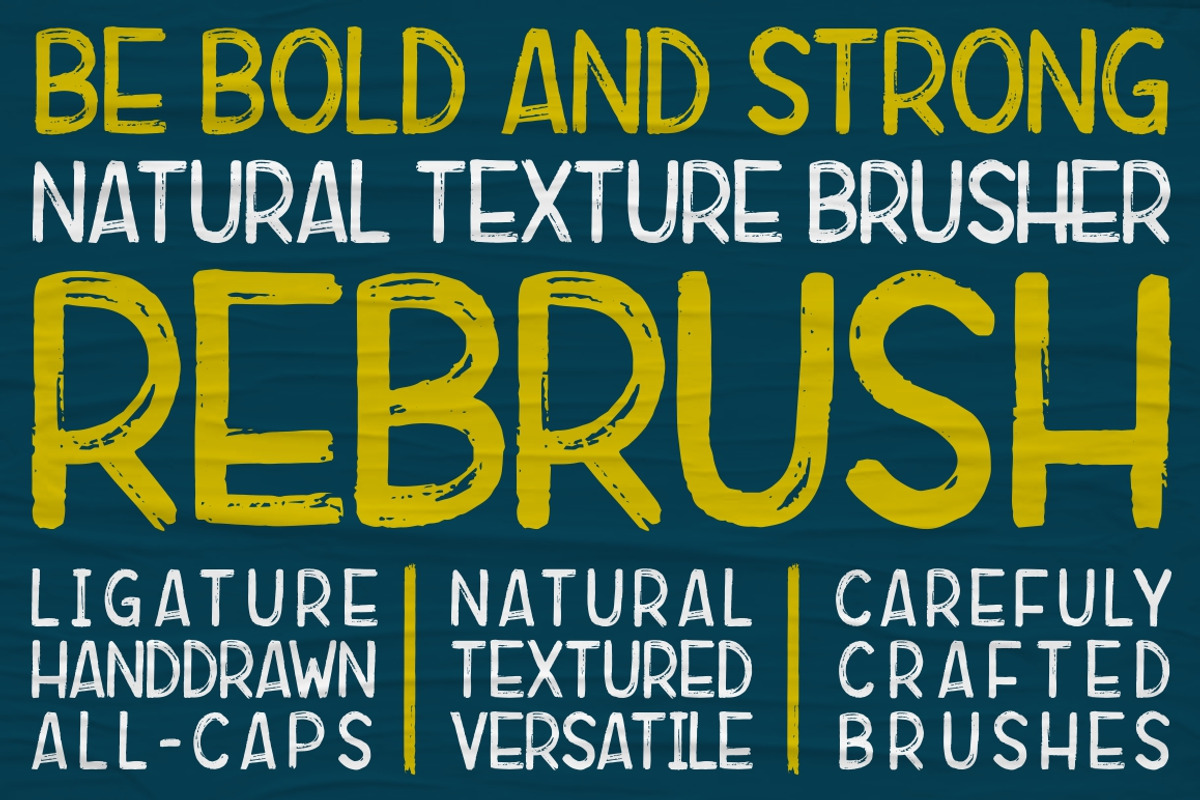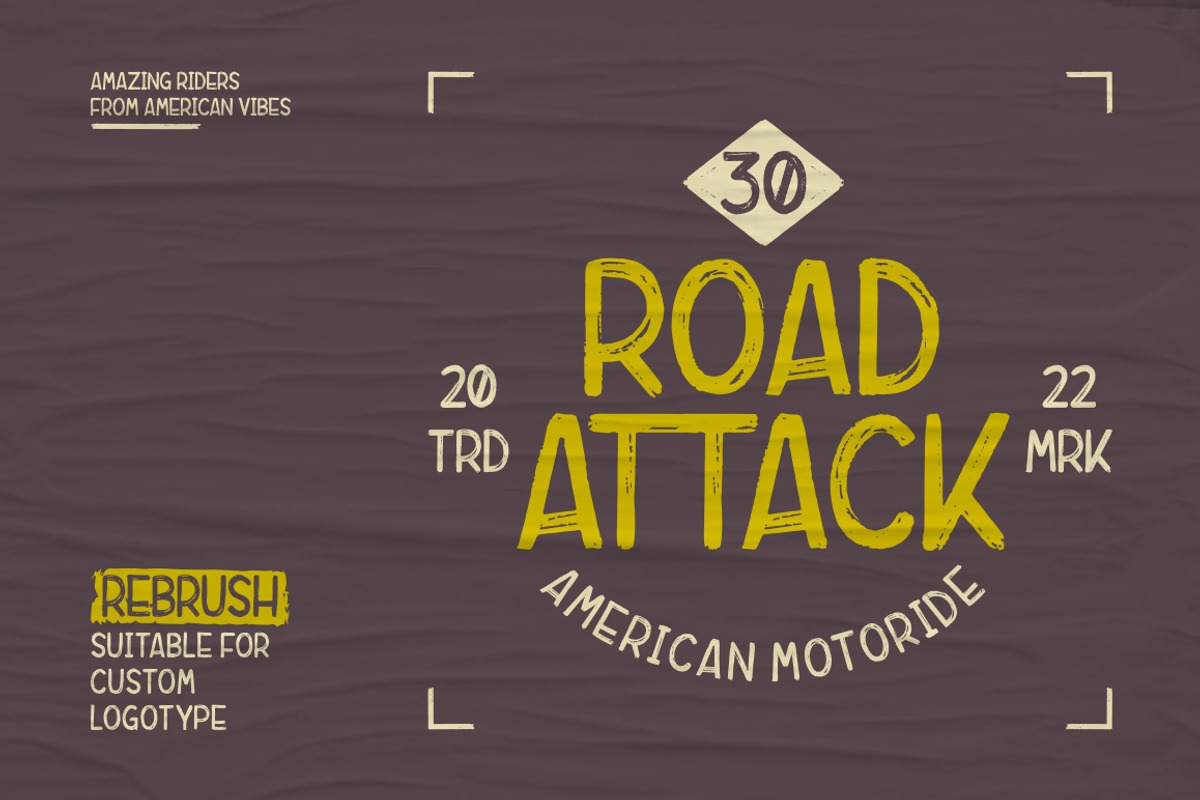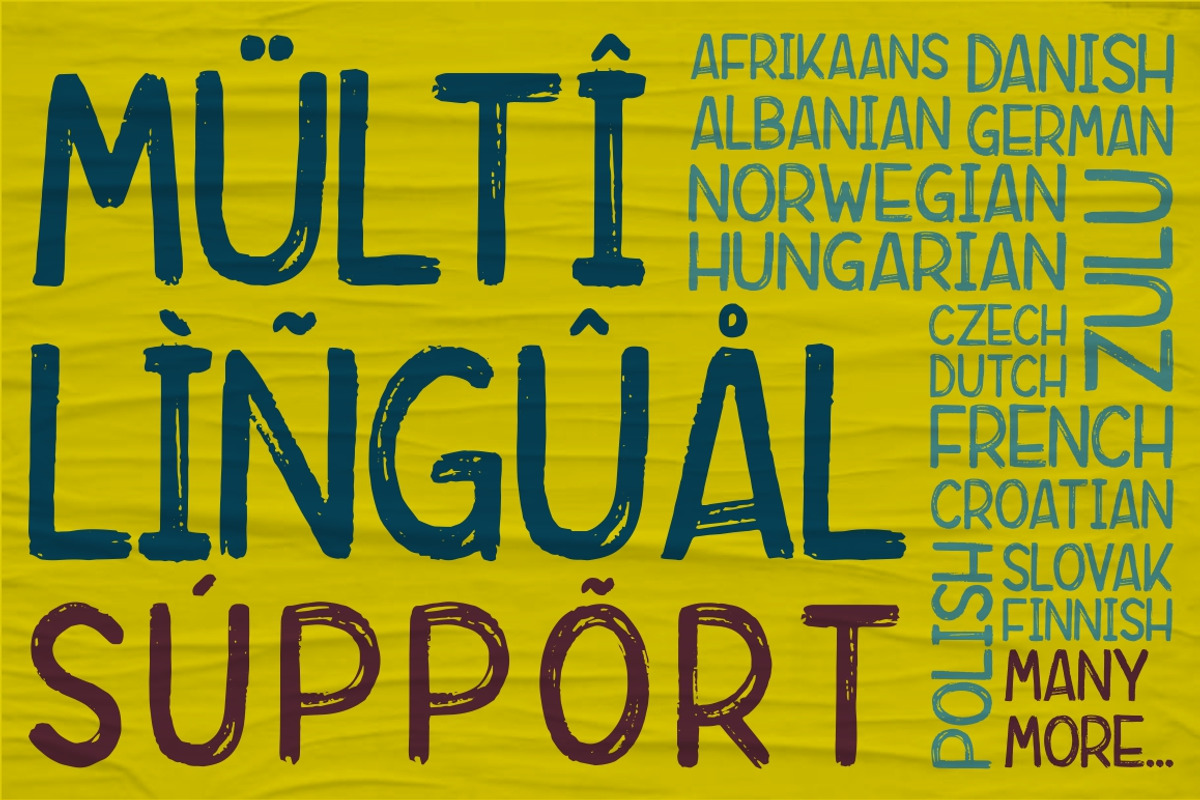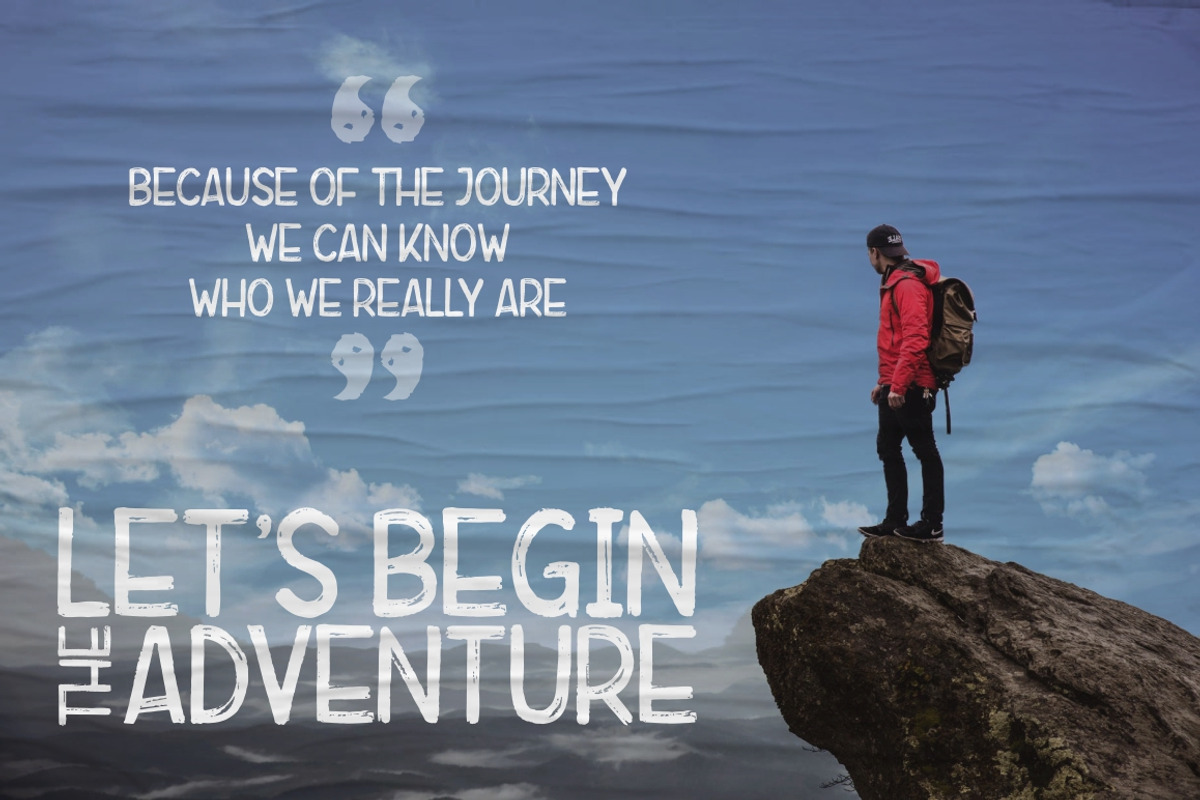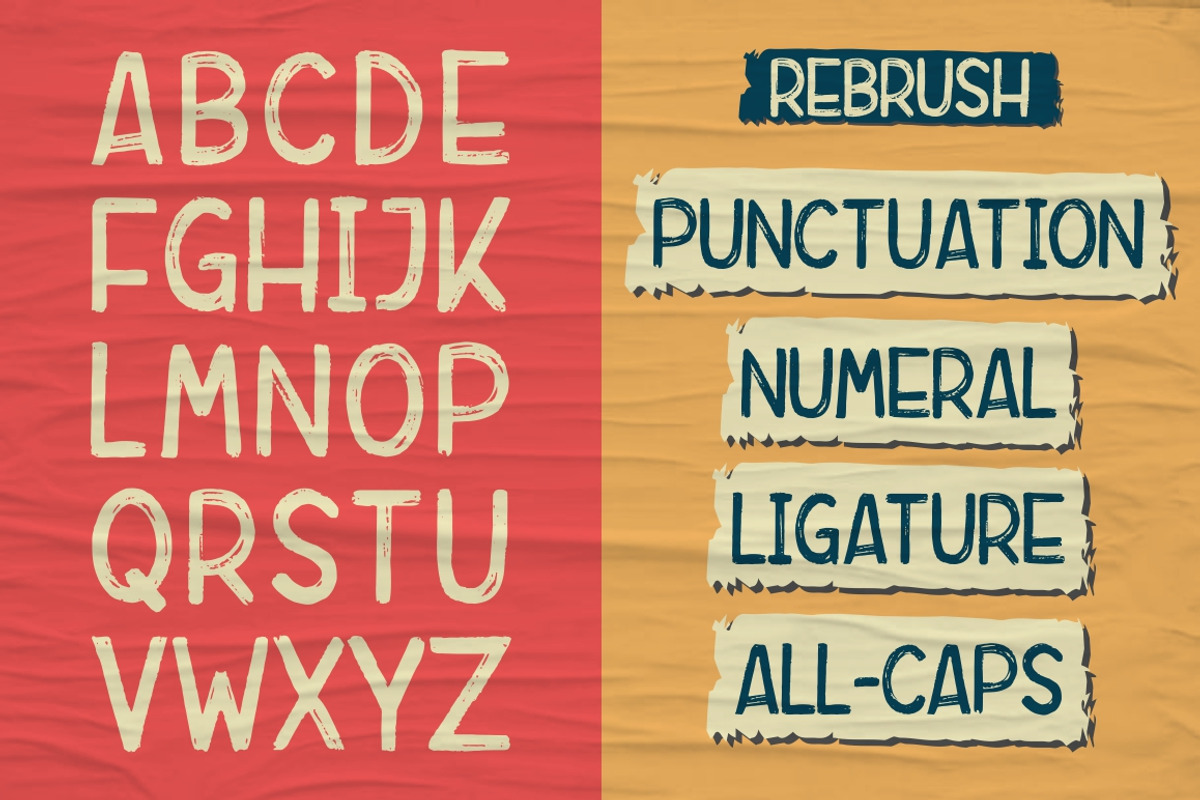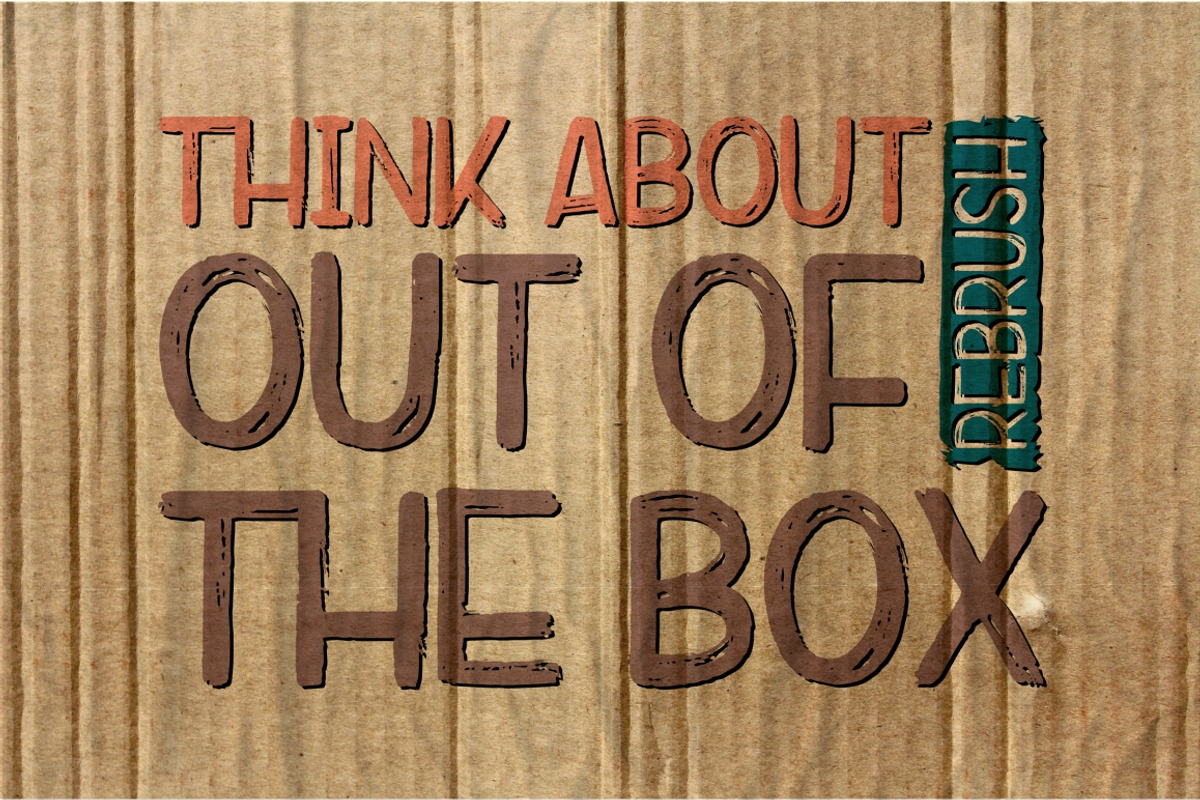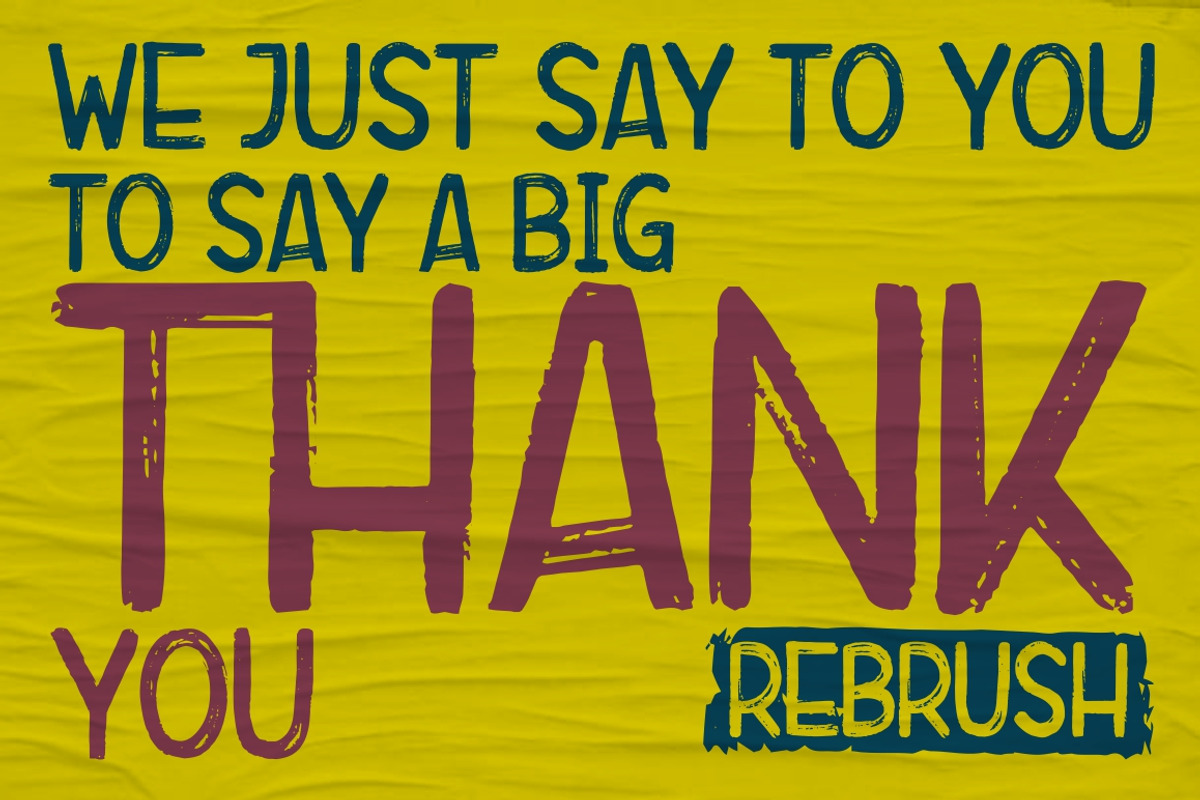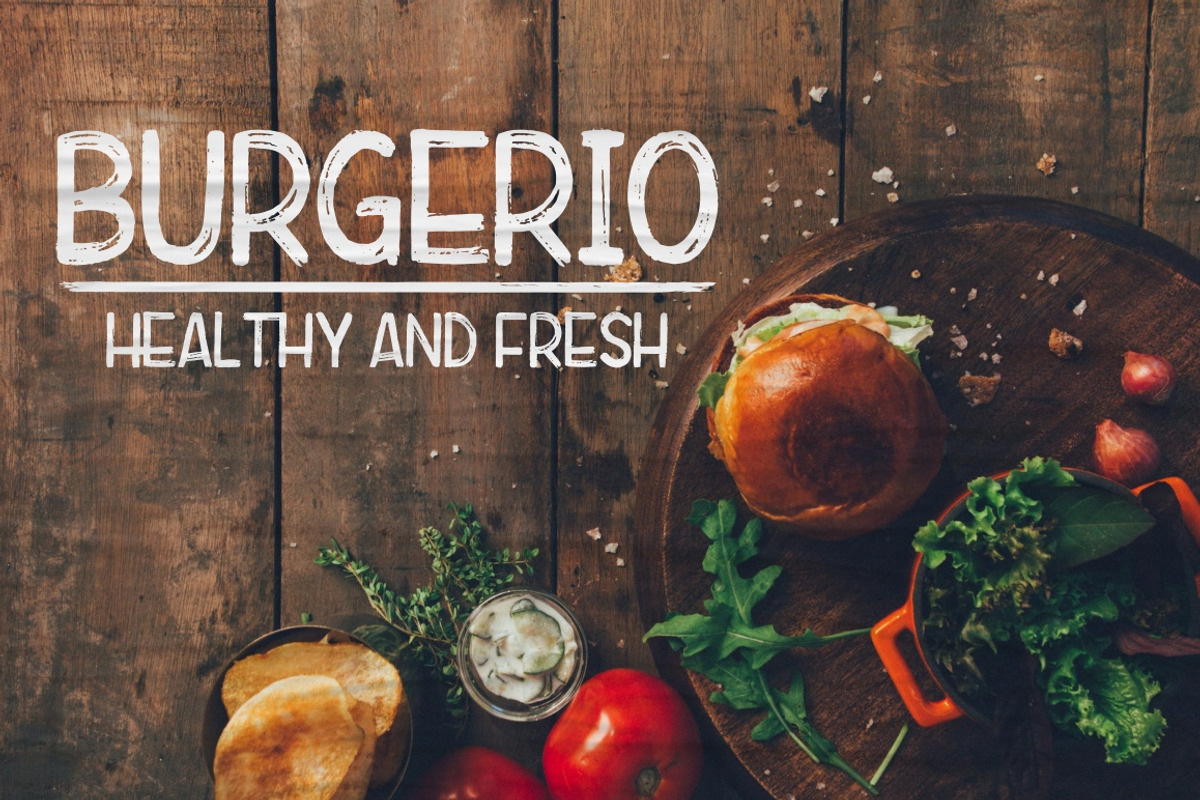
Rebrush Typeface
Introducing a New Brush Font: Rebrush Typeface
REBRUSH is natural brush font and bold textured, ideal for use in projects that need an organic and natural style. This font is great for logo, logotype, branding,wedding, fashion, label, book cover, t-shirt, instagram post, and other, and can add an elegant and classy look to your work.
Why Rebrush Typeface is worth a look
Rebrush Typeface by Indotitas fits naturally into Branding, posters, packaging, typography.